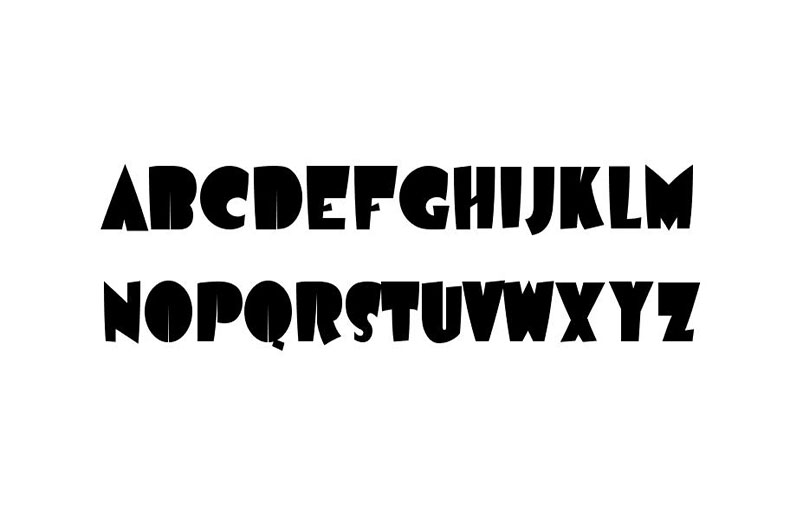
Airmole Font is a fancy display typeface that is inspired by a hand lettering manual from the early twentieth century. A Japanese designer Raymond Larabie took charge of designing and releasing it in 2000.
Its unique and eye-catching look makes it a good choice for logos, headlines, social media posters, headers, banners, titles, 3D effects, and more.
It has a modern elegant look as all the textures are created with thick strokes as well as a reflective look. Its structure is made by the design in a bold way in which you observe two types of strokes.
Airmole typeface is available in four styles including Regular, Stripe, Shaded, and Antique. This font includes 274 glyphs and 445 binary stored kerning pairs. Moreover, it supports 78 global languages.
| Font Designer: | Raymond Larabie |
This fancy font can be used for a wide range of purposes. You can create book covers, unique signs, social media posters, headers, titles, labels, product design, social media posters, headers, children’s books, flyers, headers, movie posters, special event cards, and can make much more.
This font supports 78 languages.
Airmole Font is a fancy display typeface that is inspired by a hand lettering manual from the early twentieth century. A Japanese designer Raymond Larabie took charge of designing and releasing it in 2000.